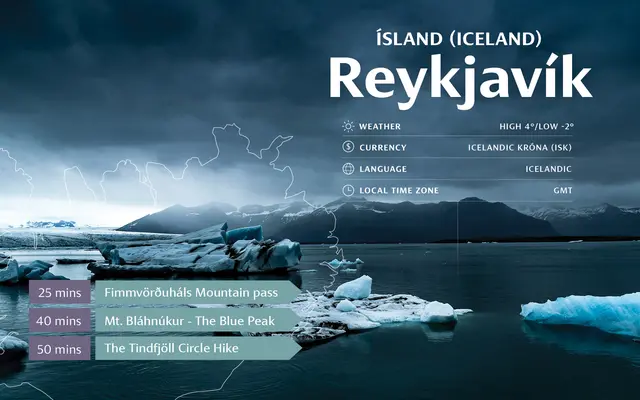
Skeena
Tiro Typeworks · John Hudson, Paul Hanslow
A humanist sans by John Hudson and Paul Hanslow, released through Tiro Typeworks with a broad six-weight range and variable font options.
Designed by John Hudson and Paul Hanslow, Skeena spans six weights from Regular to Black, each with a matching italic, totalling 12 static styles. Variable font versions covering the full weight axis are also available in roman and italic cuts. The family carries Microsoft trademark associations and is built with broad Latin Extended character support across 471 glyphs.
Skeena exhibits the calligraphic warmth and open letterforms characteristic of humanist sans-serifs, designed for extended text use across a wide weight range with accompanying italics.